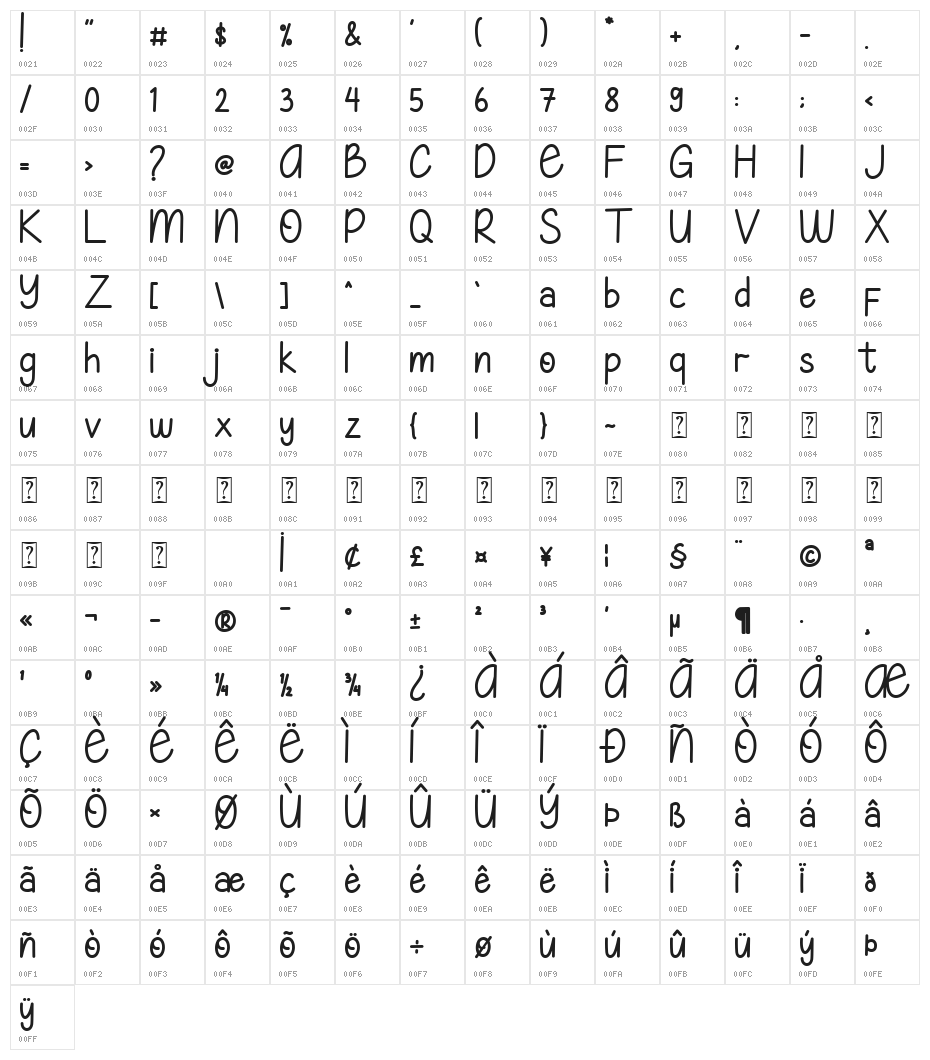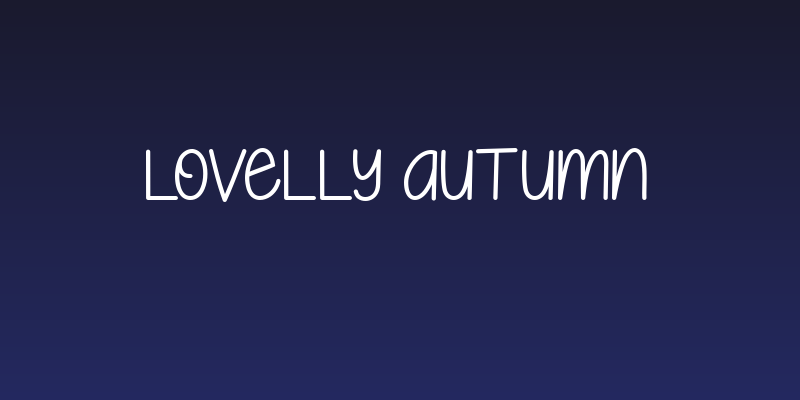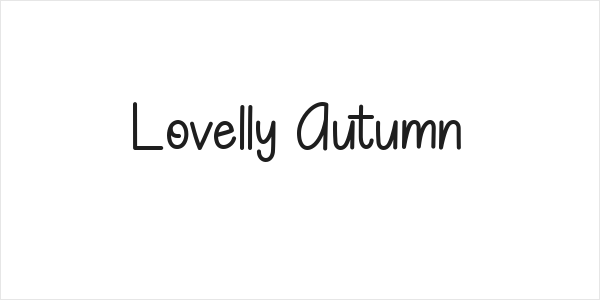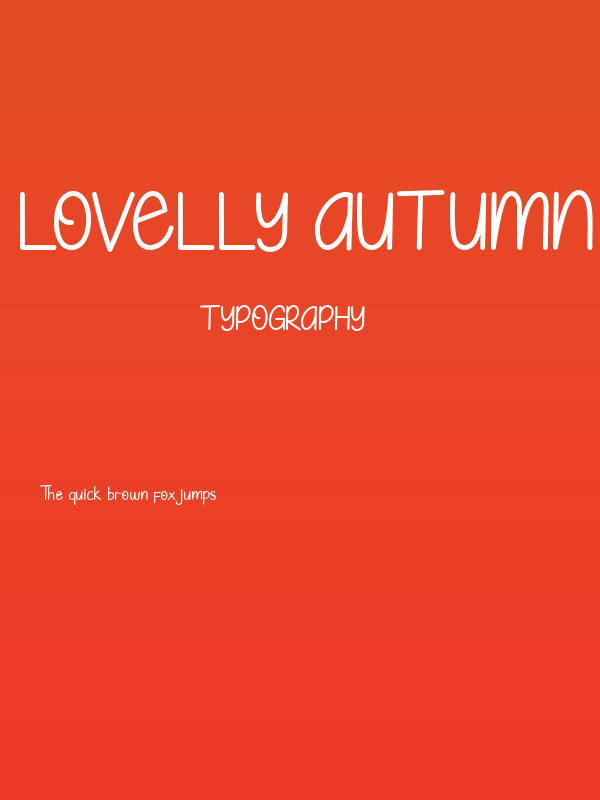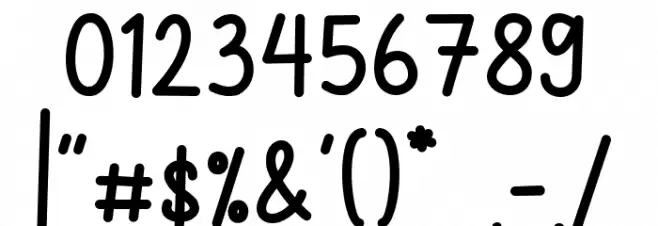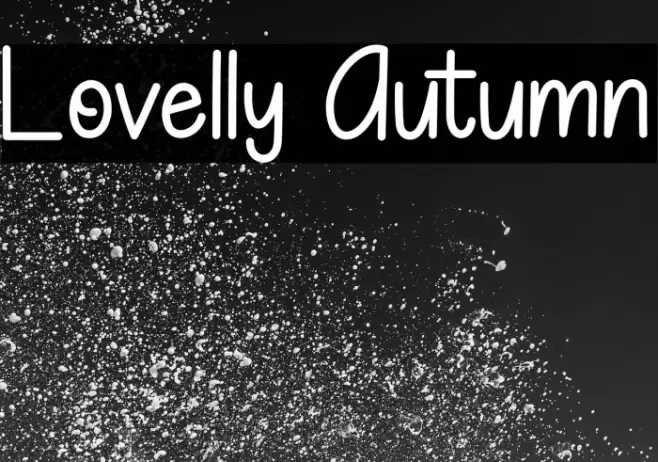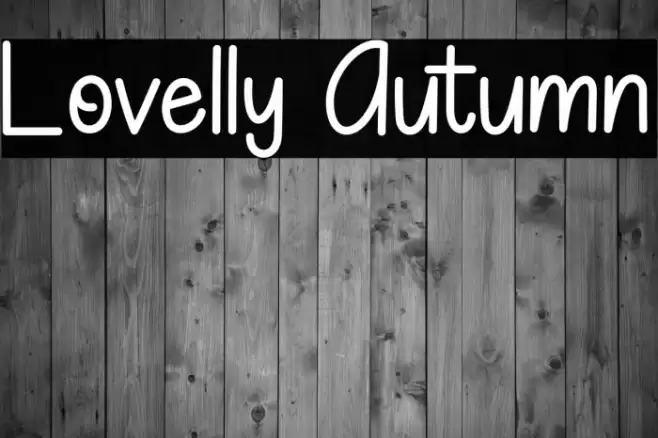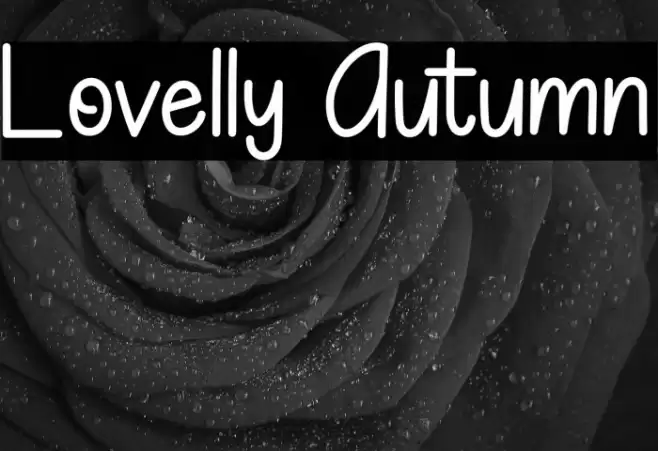
Lovelly Autumn Font
This font features a playful and whimsical style with a handwritten appearance. The characters are rounded and slightly irregular, giving it a friendly and approachable feel. The uppercase letters are tall and narrow, while the lowercase letters maintain a consistent height with a slight slant. The numerals are bold and easy to read, complementing the overall style. Special characters are creatively designed, adding to the font's charm. This font is perfect for projects that require a personal touch, such as greeting cards, invitations, or children's books.
| Proposed Projects | Ideal for greeting cards, invitations, children's books, and playful branding. |